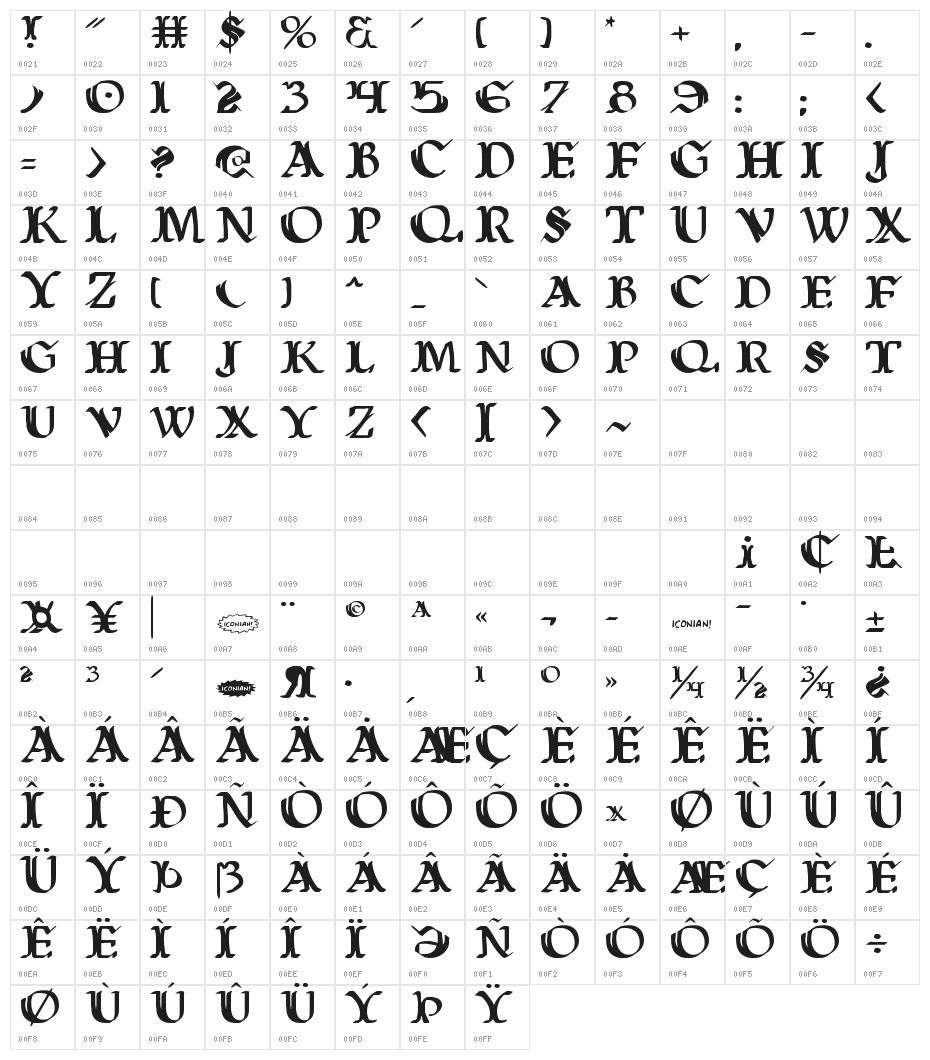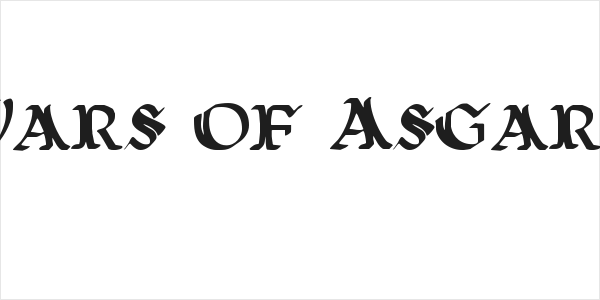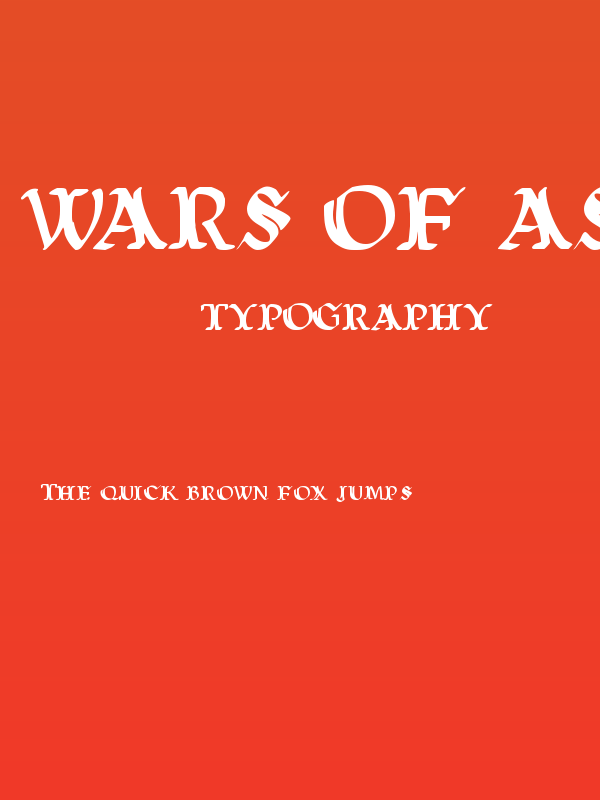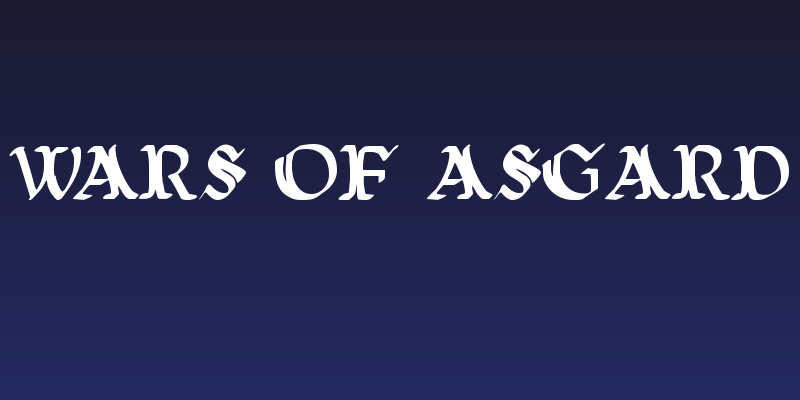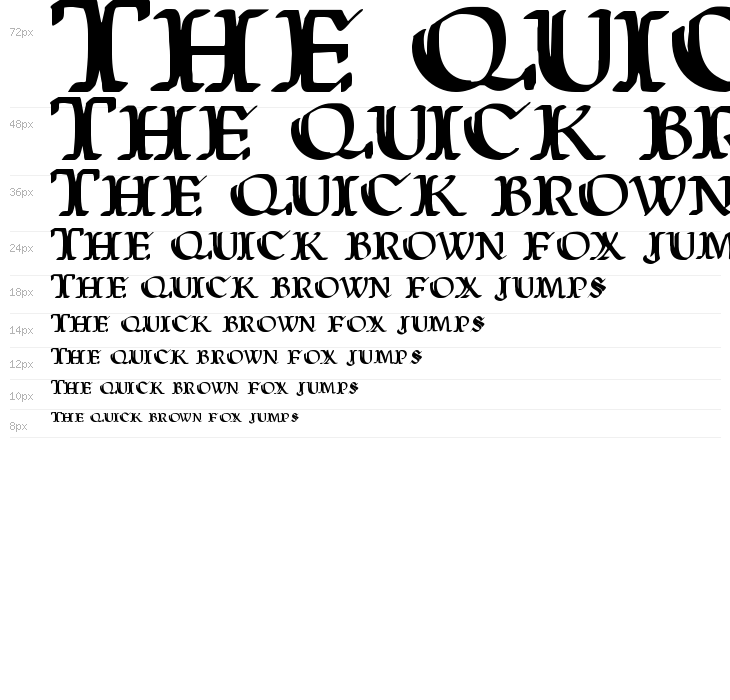
Wars of Asgard Font
Wars of Asgard Description
This font features a bold and dramatic style with sharp, angular serifs and a distinct medieval flair. The characters are heavily stylized, with exaggerated curves and pointed edges that evoke a sense of ancient script or heraldic design. The uppercase and lowercase letters maintain a consistent aesthetic, with a strong emphasis on vertical strokes and a slightly condensed form. Numbers and special characters are equally ornate, ensuring a cohesive look across all text elements. This font is ideal for projects that require a touch of historical or fantasy-themed elegance.
| Overall Style | Medieval, Decorative |
| Proposed Projects | Perfect for fantasy book covers, medieval-themed events, video game titles, or historical documentaries. |